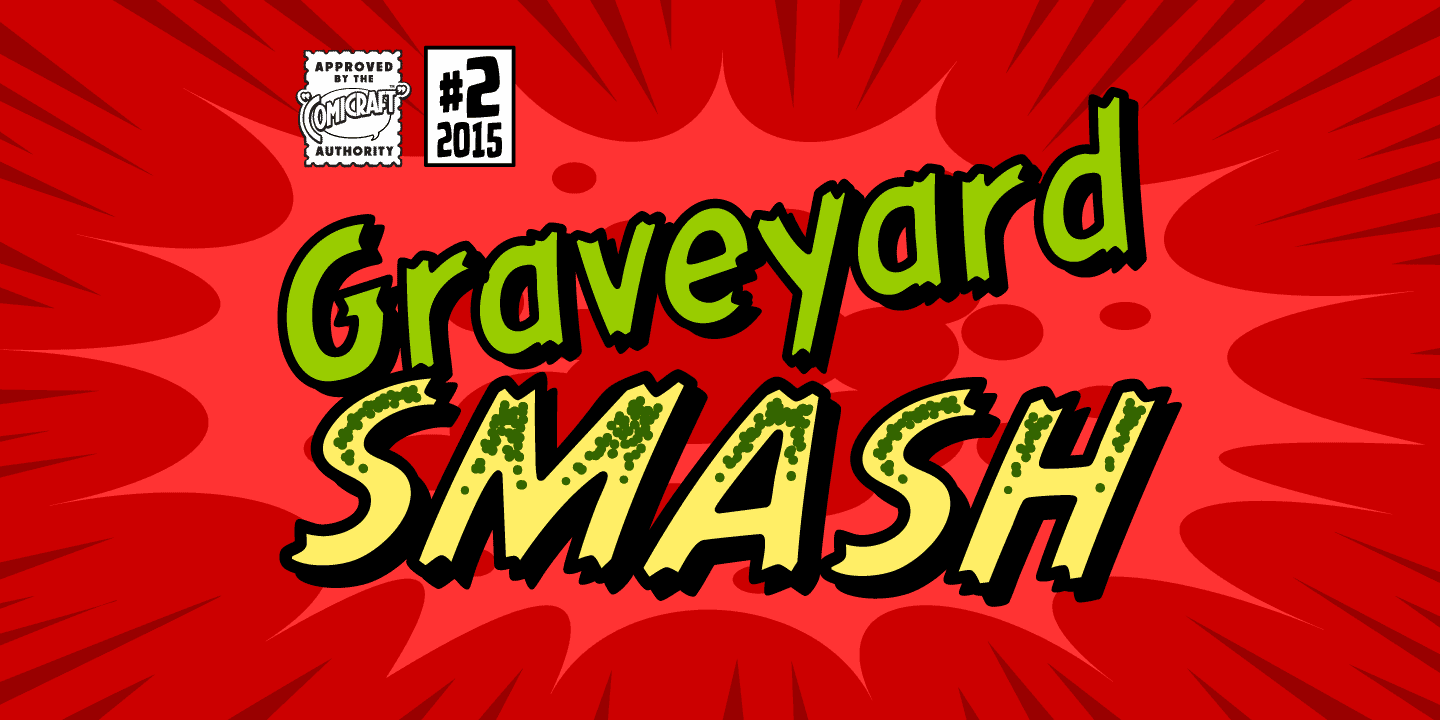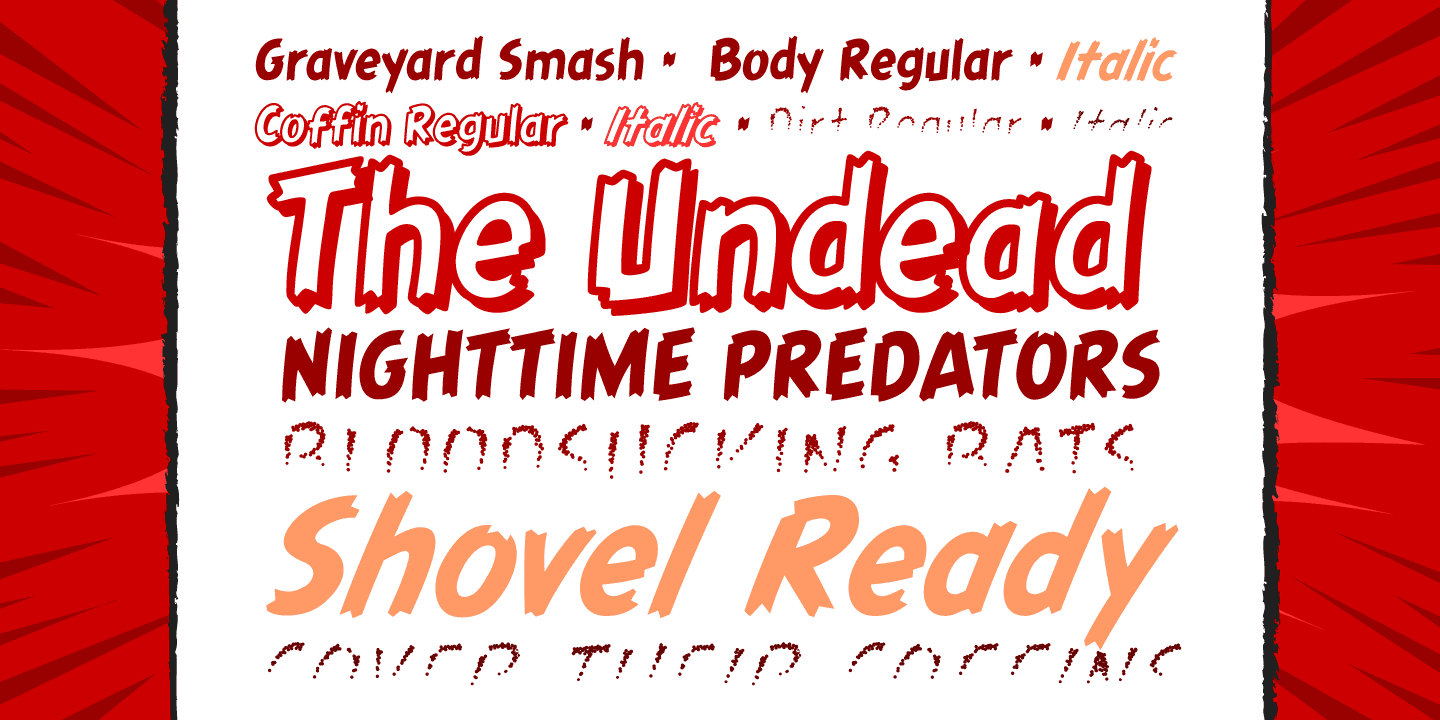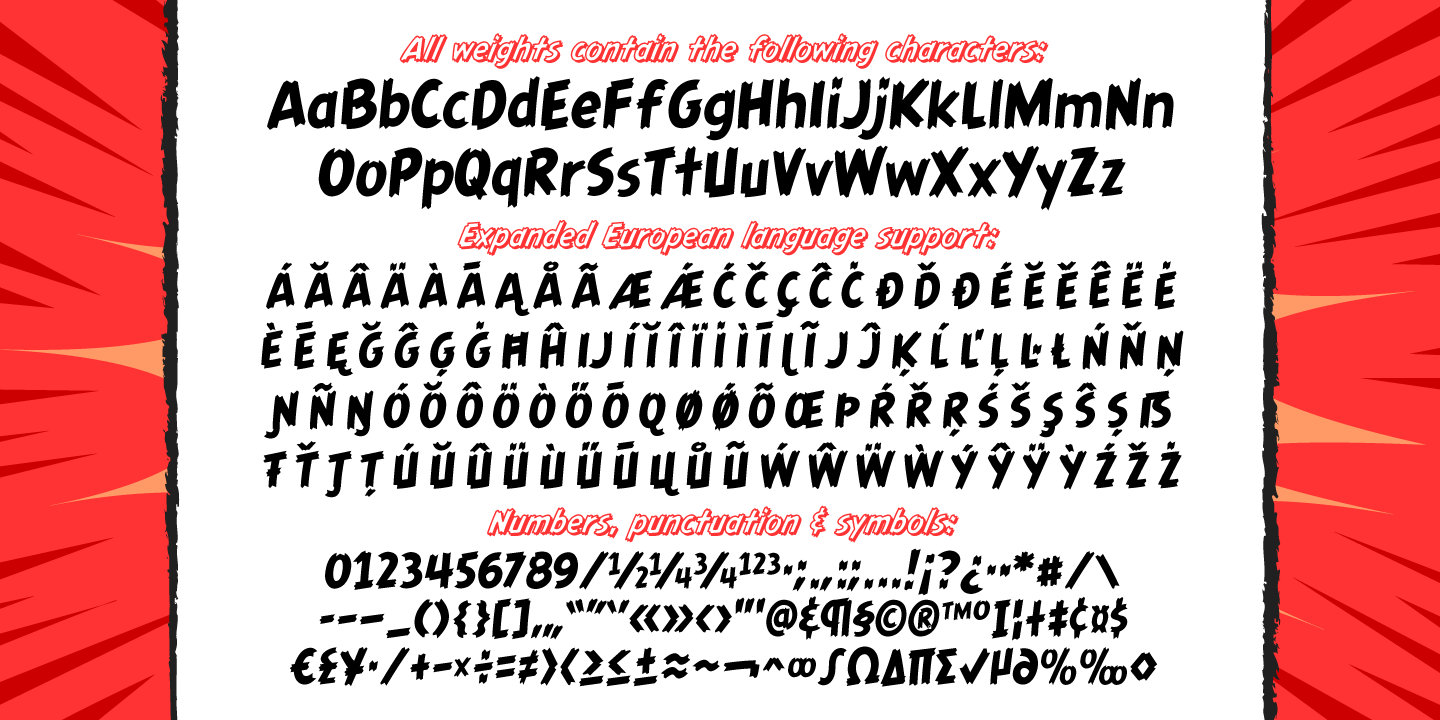
Graveyard Smash
Font Family by Comicraft Fonts
Tombstones tumble as the night shift begins; as bloodsucking bats turn into pale predators and the undead reach through the dirt that covers their coffins to crush and destroy those who dare cross the cemetery path... Finally, there emerges a cold cast of creepy characters, a macabre cadre of lurid letters we had to call... GRAVEYARD SMASH.